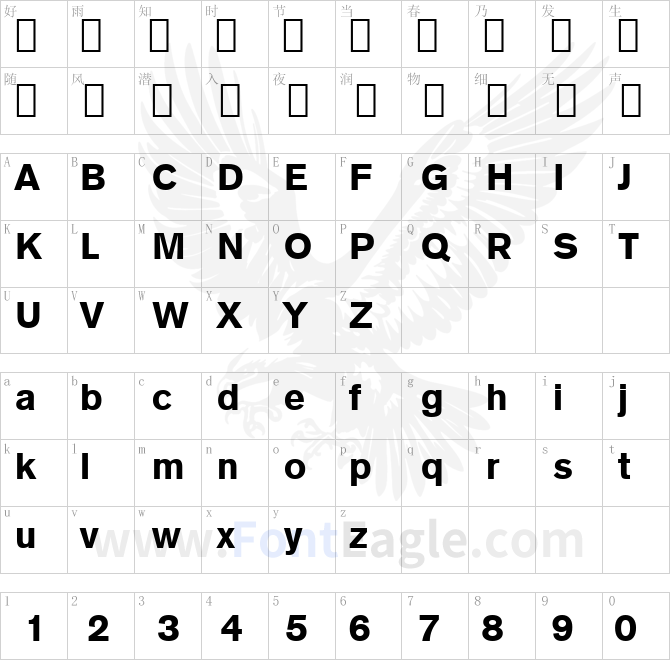
Gothic725 Blk BT Black.ttf Base Font Information
- Font name:Gothic725 Blk BT
- Font Subfamily ID:Gothic 725 Black
- Font Full Name:Gothic 725 Black BT